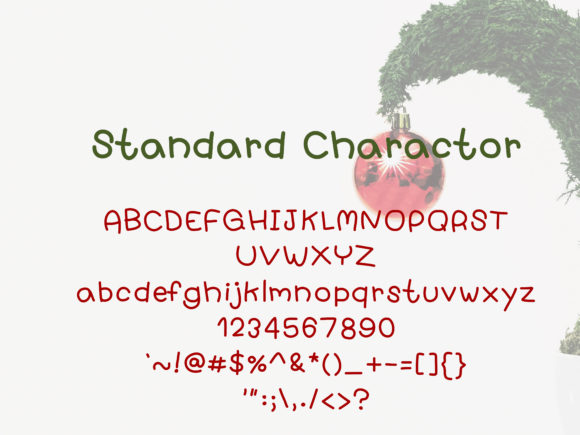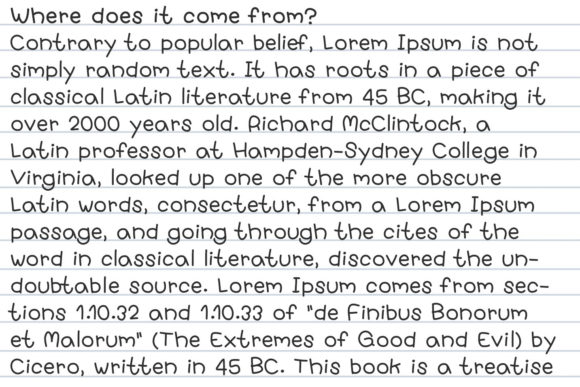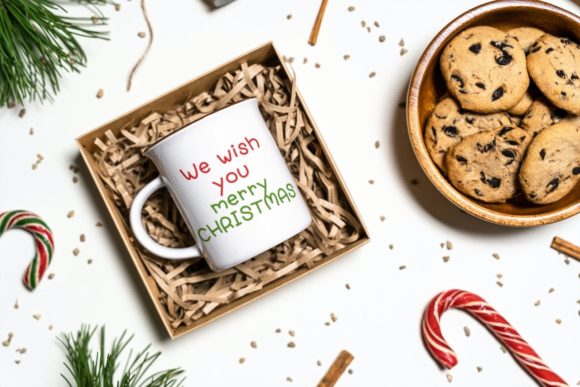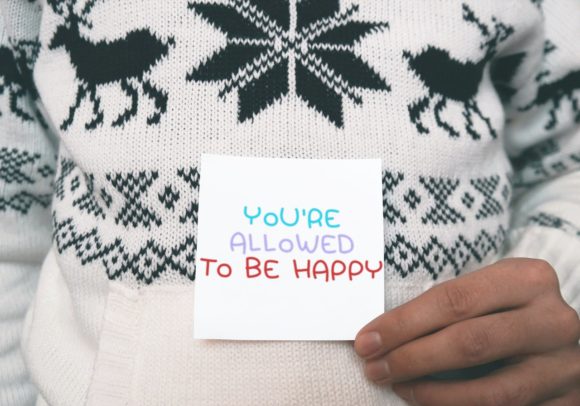
About Hohoho Santa Font
Hohoho Santa is a cute handwritten font that looks so natural and playful! Use its charming characters to add a personal and authentic feel to all your crafty ideas and projects!